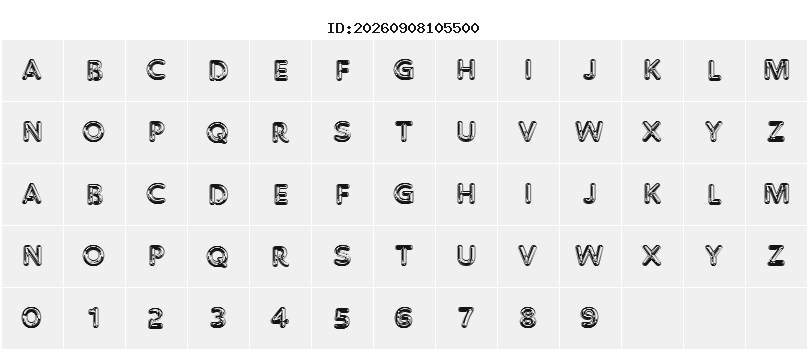
URWChrallisD Preview
• Font Name: URWChrallisD
• Full Font Name: URWChrallisD
• PostScript Name: URWChrallisD
About URWChrallisD.ttf
URWChrallisD.ttf is a modern, elegant sans-serif font designed for ultimate readability and visual harmony. Perfect for branding, headlines, web design, and print materials.